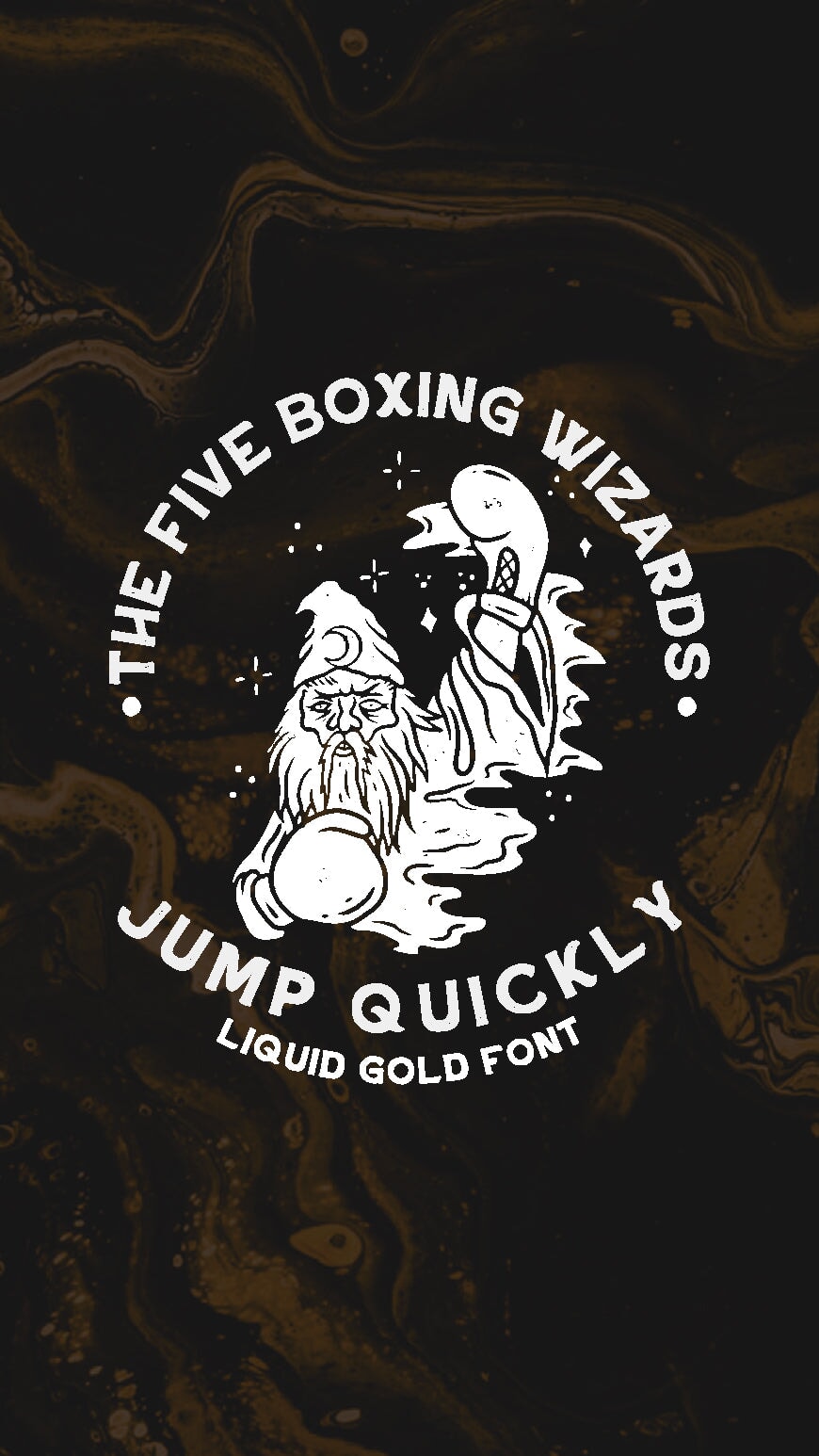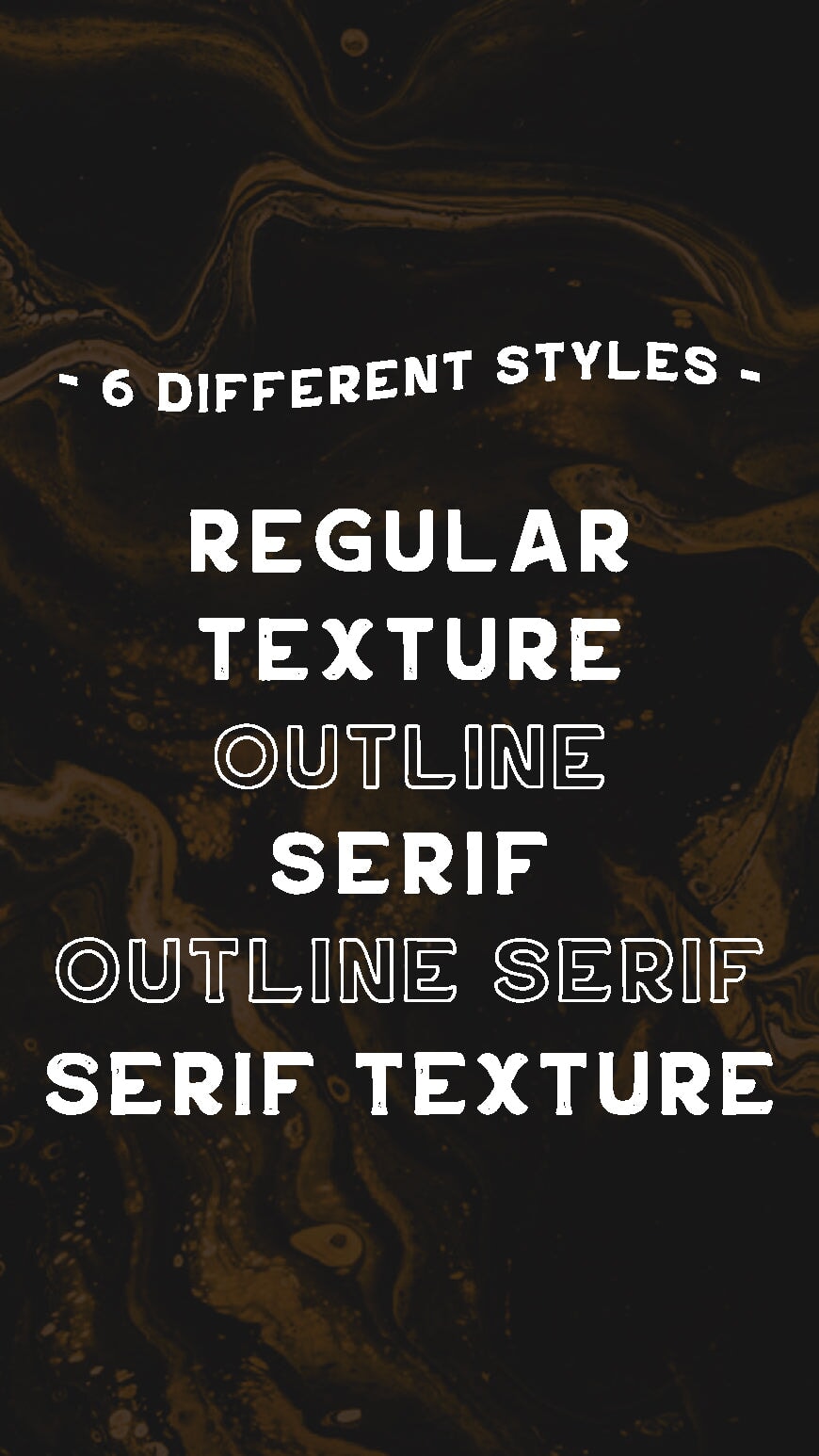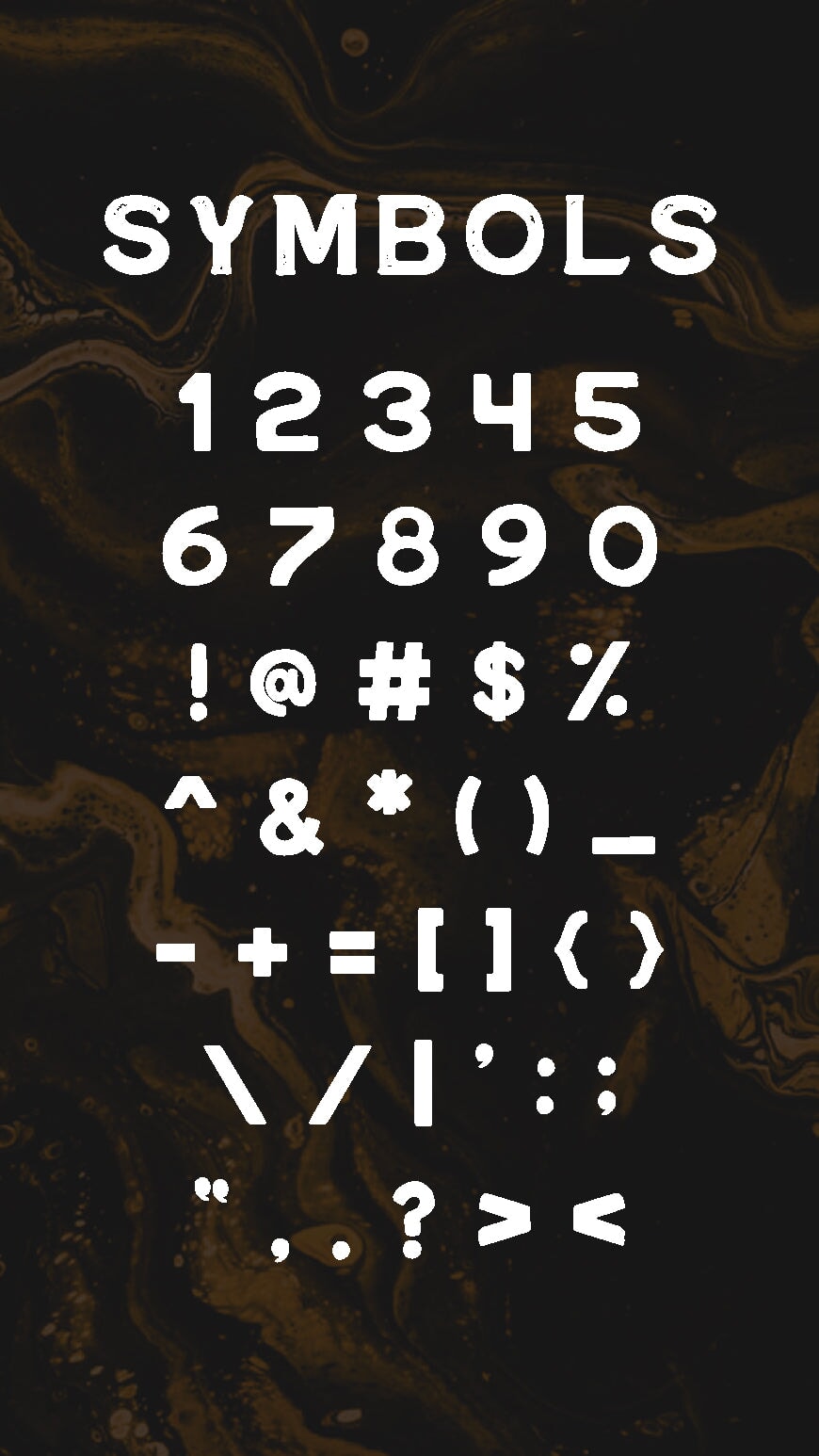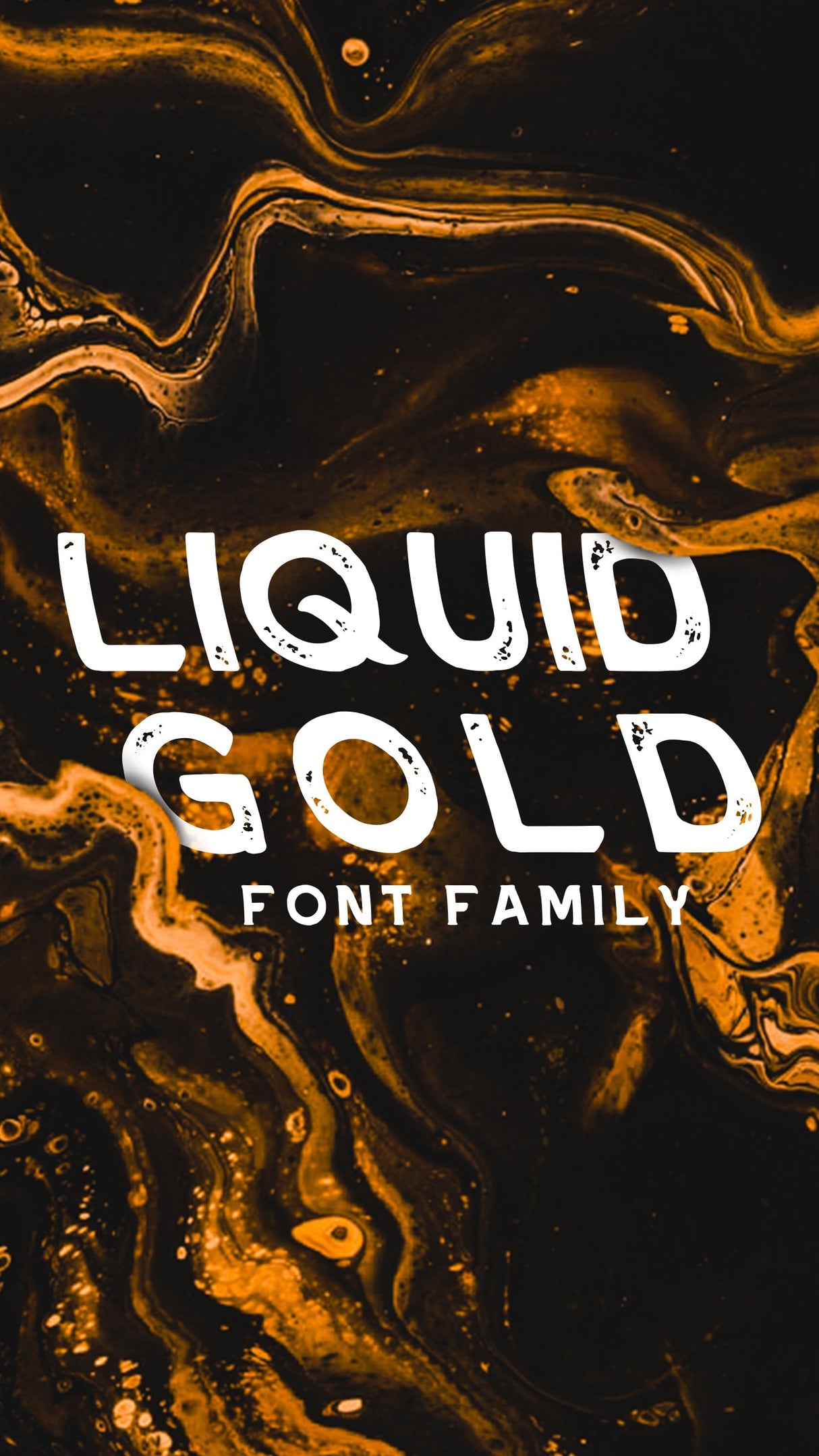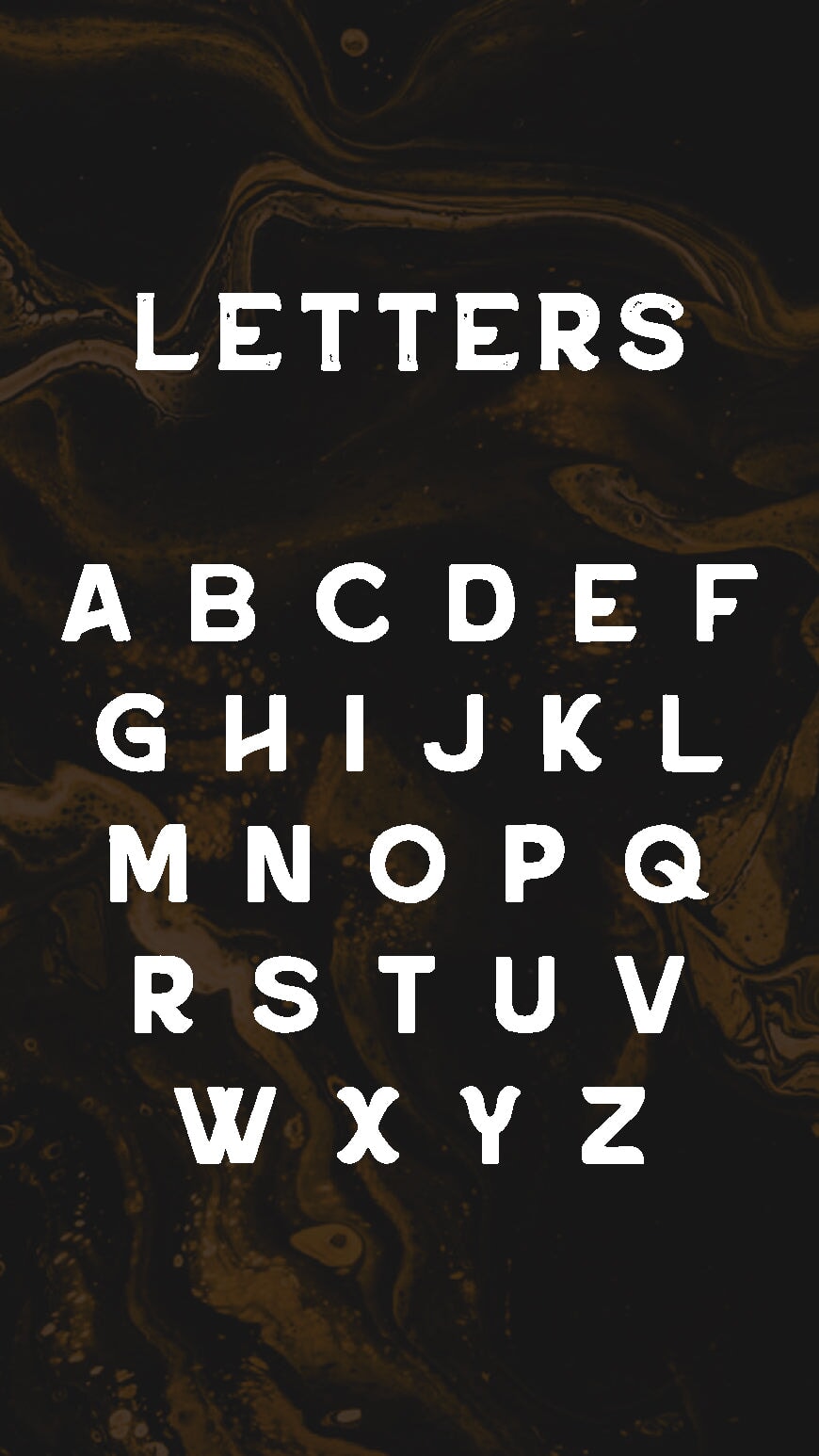
Check out this BOLD yet Fluid font family Liquid Gold. It comes with 6 different styles: Regular, Texture, Outline Serif, Serif, and Serif Texture. Perfect for hand made shirt design!
• Includes 6 different font styles: Regular, Texture, Outline Serif, Serif, and Serif Texture
• All letters, numbers, and symbols are included